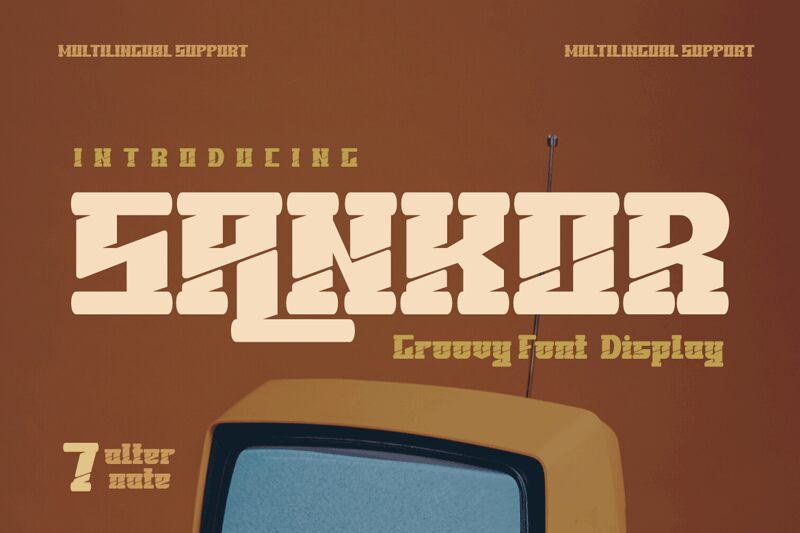
SANKOR Regular
Sankor font by Twinletter is a bold groovy display font that showcases a geometric and angular appearance. It features an industrial design that combines stencil-like elements with modern features to produce a truly exceptional font. Robust and sharp, this free font can instantly offer its unusual visual charm when needed.